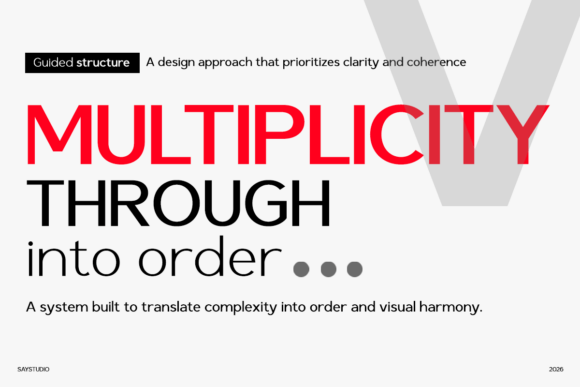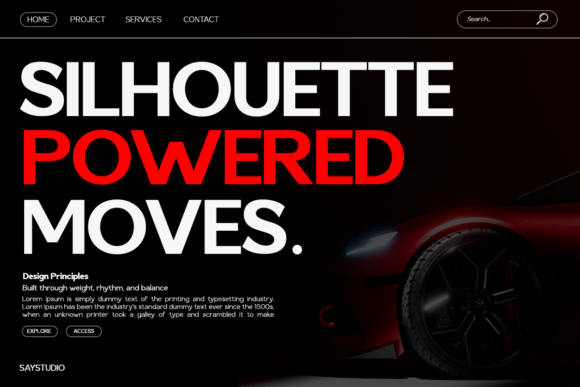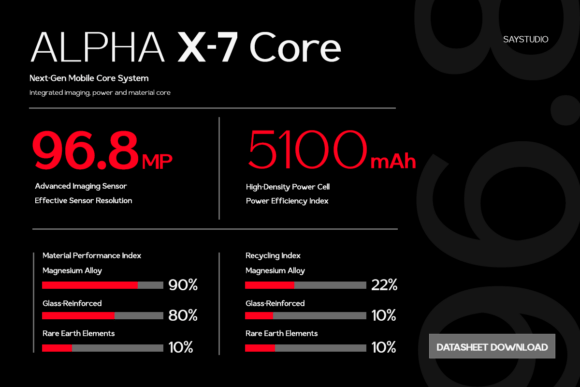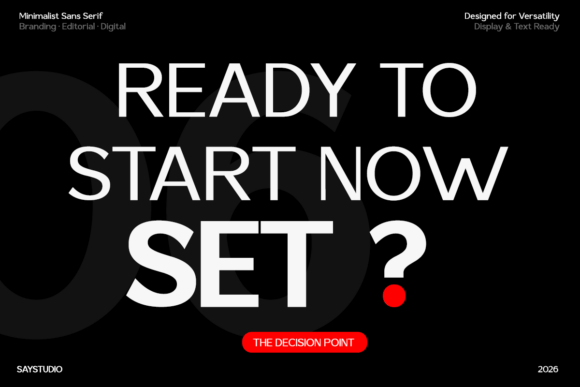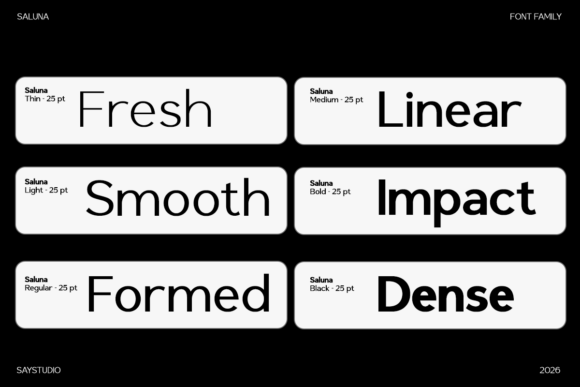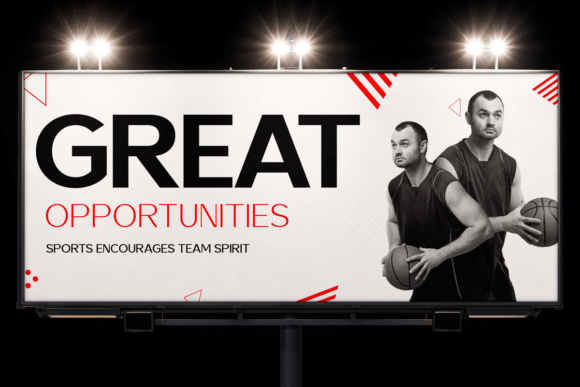
Introduction to Saluna Font Font
Fonts play a crucial role in design, and the Saluna Font font is a typeface that brings both character and versatility to any project. Whether you’re working on a branding project, a website, or a print design, the Saluna Font font offers a unique style that can elevate your work.
Saluna is a clean and modern minimalist sans serif typeface designed for professional and commercial design needs.
Built with precise geometry and balanced proportions, Saluna delivers excellent readability and a strong contemporary look that works perfectly for modern branding, editorial layouts, and digital design projects Its neutral and versatile character makes it easy to pair with other typefaces while remaining visually confident on its own.
Key Features of Saluna Font Font
Why Choose Saluna Font Font?
The Saluna Font font is more than just a typeface – it’s a design tool that helps you communicate your message with style and clarity. Its unique character set and versatile design make it suitable for a wide range of applications, from elegant invitations to bold headlines.
With its carefully crafted letterforms and balanced proportions, the Saluna Font font ensures readability and visual appeal across all mediums.
What makes Saluna Font font special?
The Saluna Font font stands out with its unique design, exceptional readability, and versatility across various design applications.